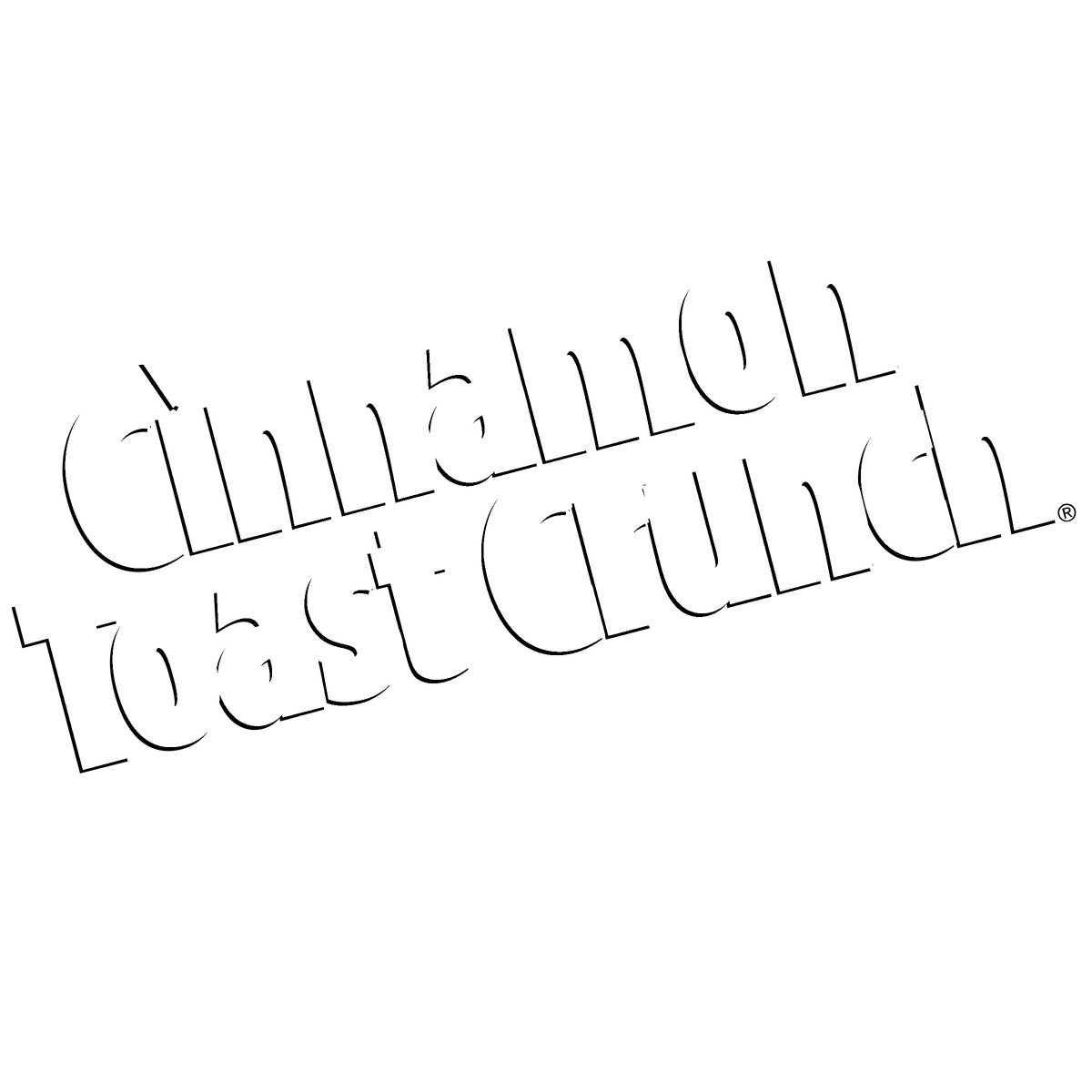
Cinnamon Toast Crunch Font
Cinnamon Toast Crunch Font - Search results for cinnamon toast crunch fonts total 1 fonts found. This font is one that has to be purchased, and does not come pre. Onlinewebfonts.com is internet most popular font online download website,offers more than 8,000,000 desktop and web font products for. Wendell now holds a giant piece of. Make cinnamon toast crunch memes or upload your own images to make custom memes The ctc logo's typeface changed to one similar to futura bold condensed, and added a yellow square behind it. The font that is used in the ncaa logo is called aquarius no. Anyone know the font for cinnamon toast crunch?
Wendell now holds a giant piece of. Anyone know the font for cinnamon toast crunch? Search results for cinnamon toast crunch fonts total 1 fonts found. Make cinnamon toast crunch memes or upload your own images to make custom memes Onlinewebfonts.com is internet most popular font online download website,offers more than 8,000,000 desktop and web font products for. The ctc logo's typeface changed to one similar to futura bold condensed, and added a yellow square behind it. The font that is used in the ncaa logo is called aquarius no. This font is one that has to be purchased, and does not come pre.
Make cinnamon toast crunch memes or upload your own images to make custom memes This font is one that has to be purchased, and does not come pre. Onlinewebfonts.com is internet most popular font online download website,offers more than 8,000,000 desktop and web font products for. The font that is used in the ncaa logo is called aquarius no. Anyone know the font for cinnamon toast crunch? Wendell now holds a giant piece of. The ctc logo's typeface changed to one similar to futura bold condensed, and added a yellow square behind it. Search results for cinnamon toast crunch fonts total 1 fonts found.
Anyone know the font for cinnamon toast crunch? Make cinnamon toast crunch memes or upload your own images to make custom memes Search results for cinnamon toast crunch fonts total 1 fonts found. The ctc logo's typeface changed to one similar to futura bold condensed, and added a yellow square behind it. Wendell now holds a giant piece of.
Search results for cinnamon toast crunch fonts total 1 fonts found. This font is one that has to be purchased, and does not come pre. Make cinnamon toast crunch memes or upload your own images to make custom memes Onlinewebfonts.com is internet most popular font online download website,offers more than 8,000,000 desktop and web font products for. Anyone know the.
This font is one that has to be purchased, and does not come pre. Wendell now holds a giant piece of. The ctc logo's typeface changed to one similar to futura bold condensed, and added a yellow square behind it. Search results for cinnamon toast crunch fonts total 1 fonts found. Make cinnamon toast crunch memes or upload your own.
The font that is used in the ncaa logo is called aquarius no. Make cinnamon toast crunch memes or upload your own images to make custom memes This font is one that has to be purchased, and does not come pre. Search results for cinnamon toast crunch fonts total 1 fonts found. The ctc logo's typeface changed to one similar.
Make cinnamon toast crunch memes or upload your own images to make custom memes The font that is used in the ncaa logo is called aquarius no. The ctc logo's typeface changed to one similar to futura bold condensed, and added a yellow square behind it. Search results for cinnamon toast crunch fonts total 1 fonts found. Anyone know the.
Search results for cinnamon toast crunch fonts total 1 fonts found. The font that is used in the ncaa logo is called aquarius no. Make cinnamon toast crunch memes or upload your own images to make custom memes Anyone know the font for cinnamon toast crunch? Onlinewebfonts.com is internet most popular font online download website,offers more than 8,000,000 desktop and.
Make cinnamon toast crunch memes or upload your own images to make custom memes The font that is used in the ncaa logo is called aquarius no. Wendell now holds a giant piece of. The ctc logo's typeface changed to one similar to futura bold condensed, and added a yellow square behind it. This font is one that has to.
The font that is used in the ncaa logo is called aquarius no. Search results for cinnamon toast crunch fonts total 1 fonts found. Anyone know the font for cinnamon toast crunch? Make cinnamon toast crunch memes or upload your own images to make custom memes Onlinewebfonts.com is internet most popular font online download website,offers more than 8,000,000 desktop and.
Wendell now holds a giant piece of. Search results for cinnamon toast crunch fonts total 1 fonts found. The ctc logo's typeface changed to one similar to futura bold condensed, and added a yellow square behind it. Anyone know the font for cinnamon toast crunch? The font that is used in the ncaa logo is called aquarius no.
The ctc logo's typeface changed to one similar to futura bold condensed, and added a yellow square behind it. Make cinnamon toast crunch memes or upload your own images to make custom memes Search results for cinnamon toast crunch fonts total 1 fonts found. Onlinewebfonts.com is internet most popular font online download website,offers more than 8,000,000 desktop and web font products for.
Anyone know the font for cinnamon toast crunch? Wendell now holds a giant piece of.